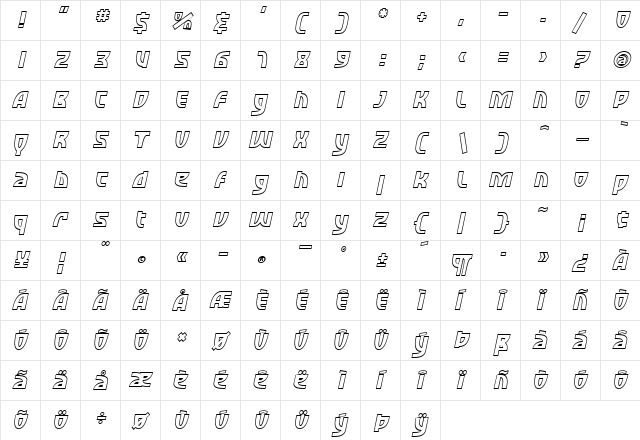
SF Retroesque Outline Oblique
Design Context for SF Retroesque Outline Typeface
SF Retroesque Outline has the warm character of retro typography — evoking diners, record sleeves, and the golden age of print advertising. The dynamic lean of this cut emphasises speed and emphasis in any layout.
Perfect for vintage-inspired branding, retro packaging, nostalgia campaigns, and period-accurate editorial design.
Font Pairing: Combine SF Retroesque Outline with a simple slab or neutral sans — period-accurate companions reinforce the vintage feel without competing for attention.
Pro Tip: Use SF Retroesque Outline for headlines and pull quotes rather than body copy — its personality is best appreciated in short, focused bursts.